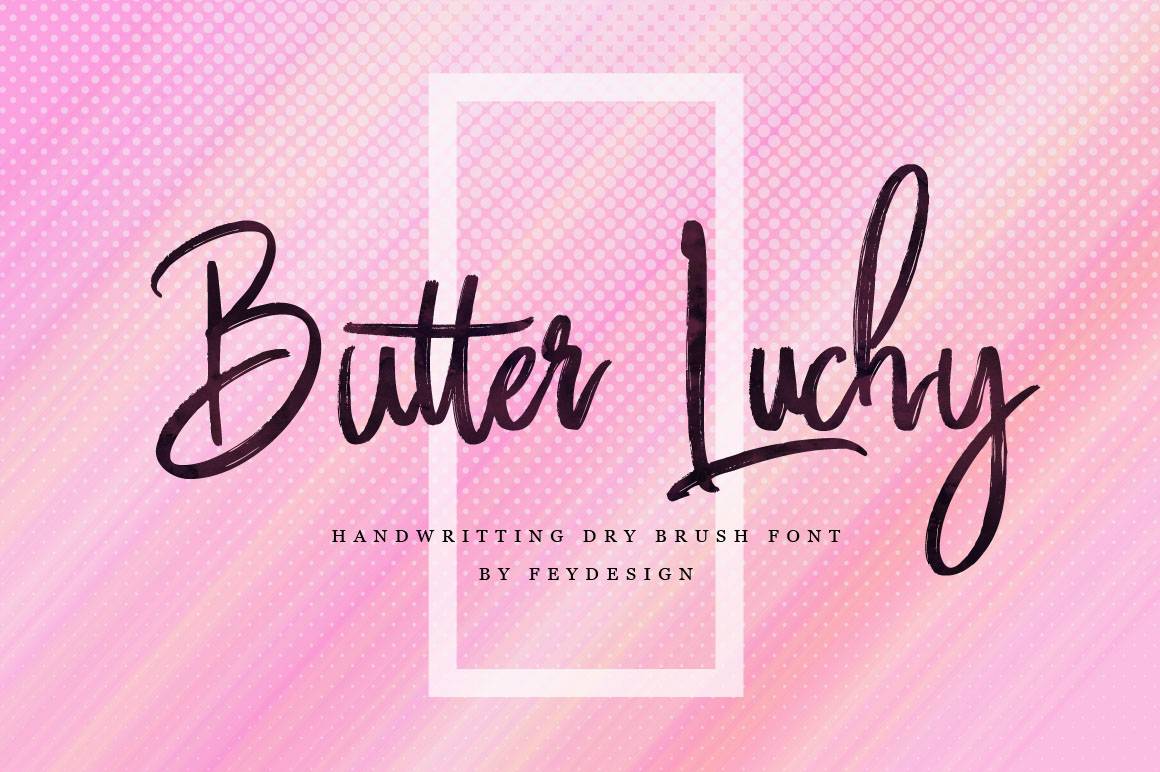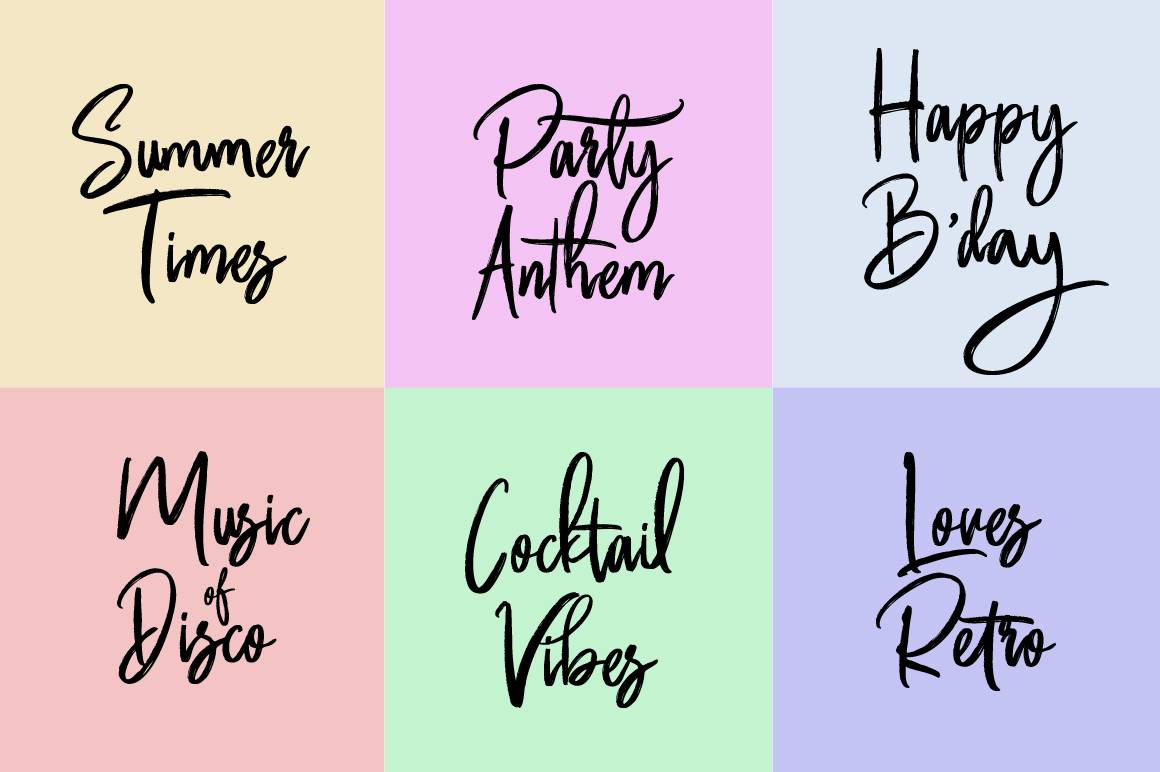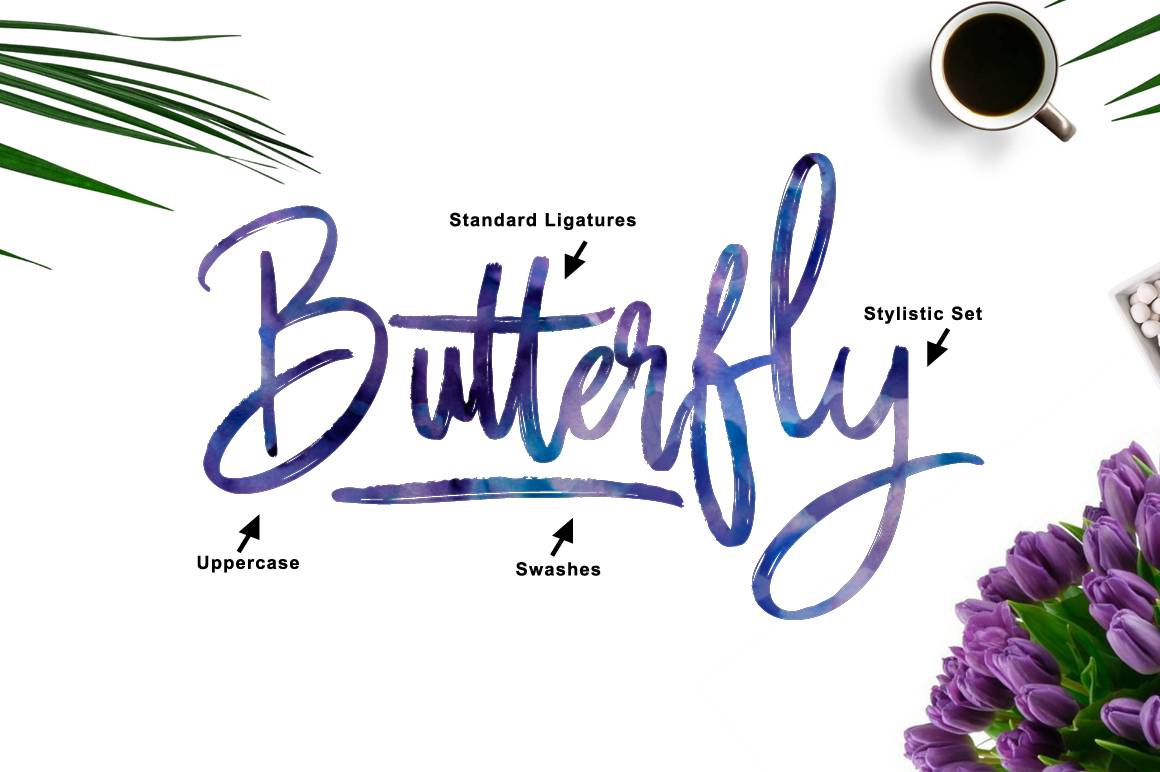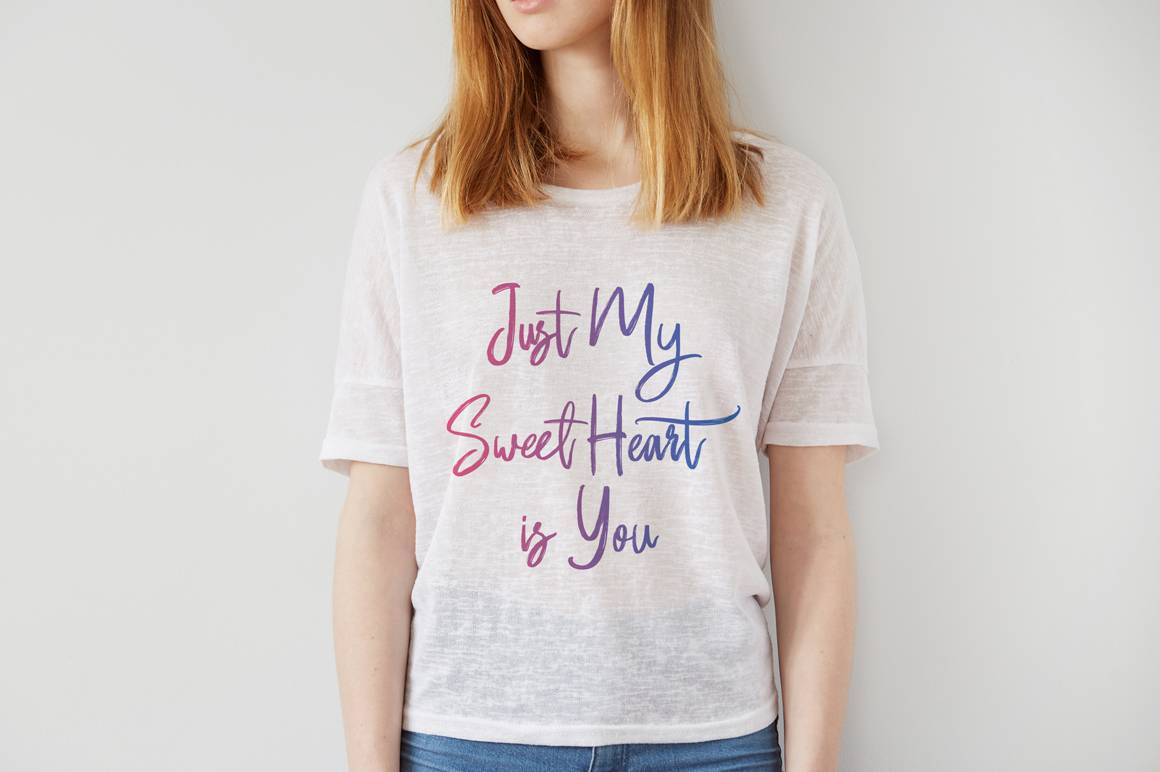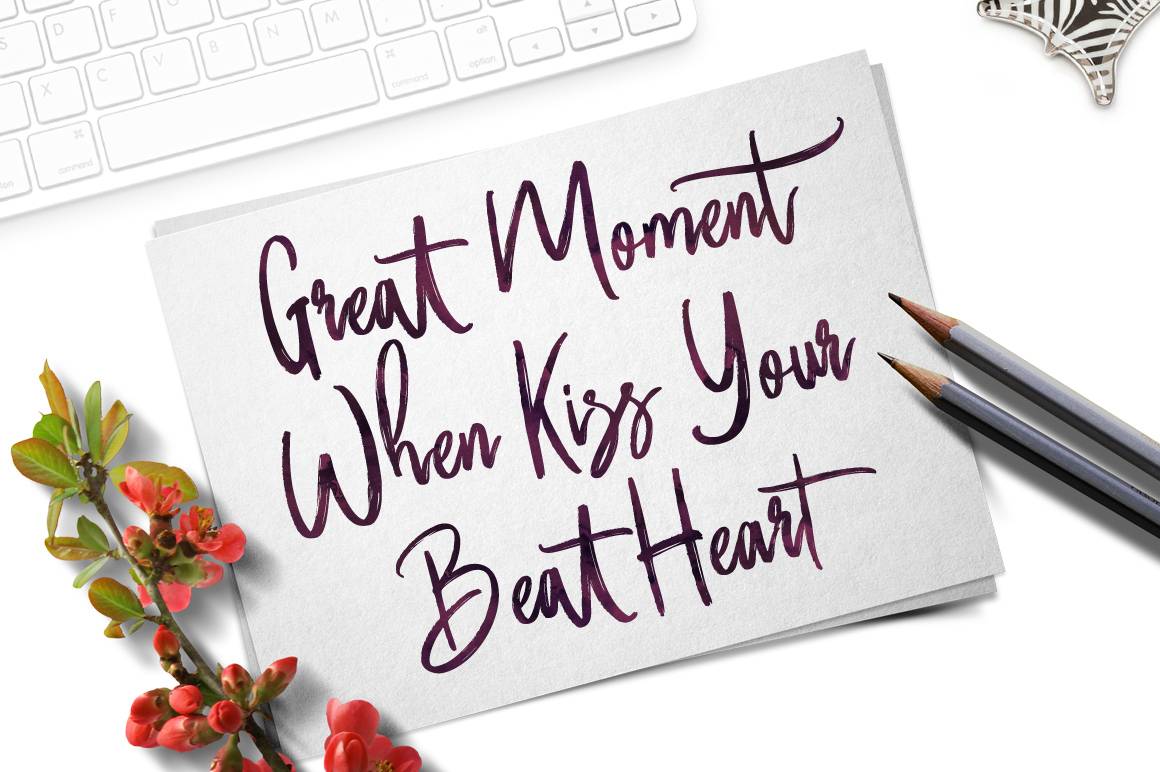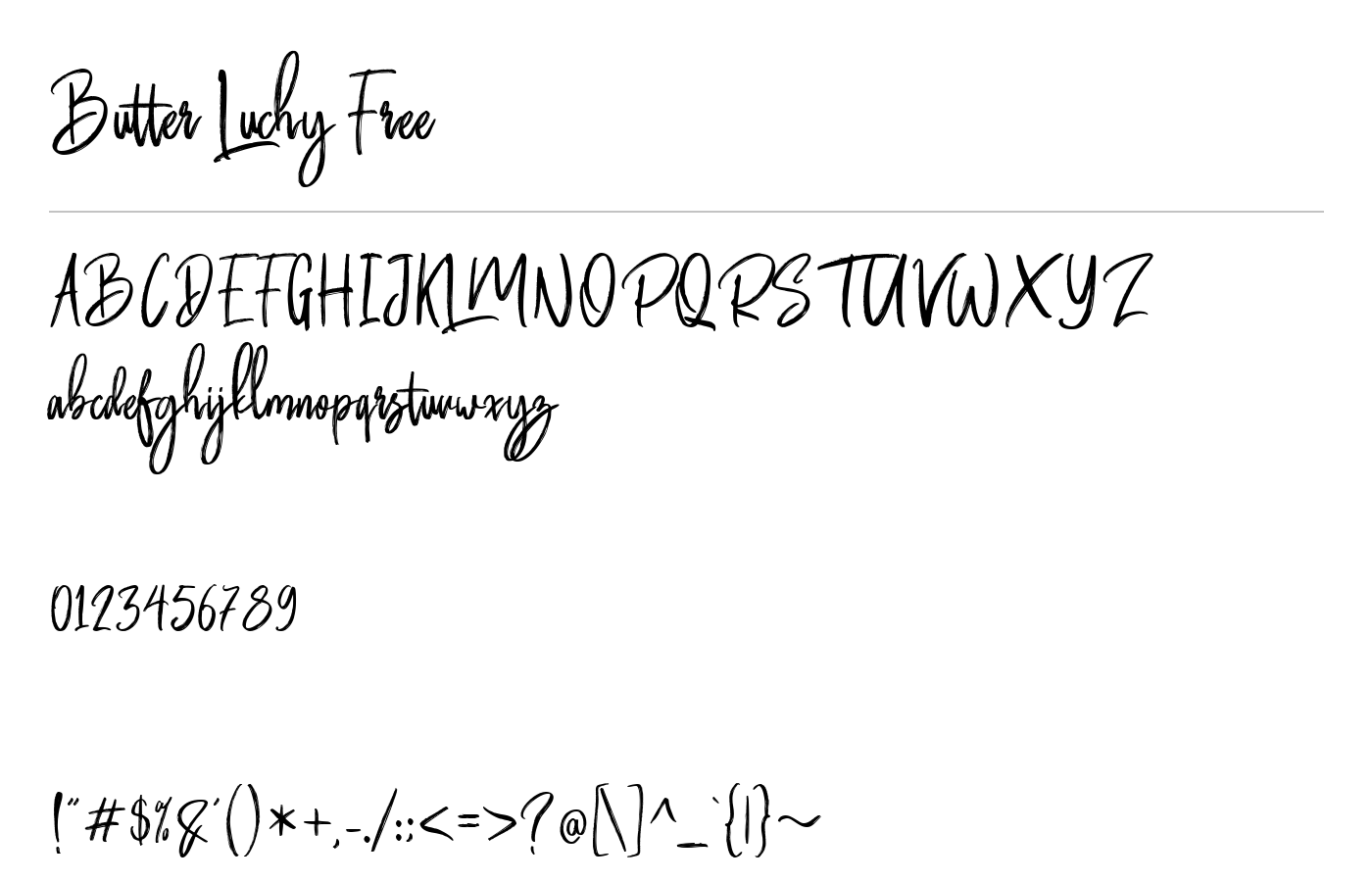
Butter Luchy is a playful and elegant handwritten script font with a casual, flowing style that combines thin, expressive strokes with a lively, organic feel. Its tall, slender letterforms and slightly uneven lines give it a charming, personal touch, making it perfect for creative projects, branding, invitations, and headlines that want to convey warmth and individuality. This font works well where a friendly yet sophisticated personality is desired, especially in fashion, lifestyle, and artistic contexts.
Butter Luchy Font
About Butter Luchy Font